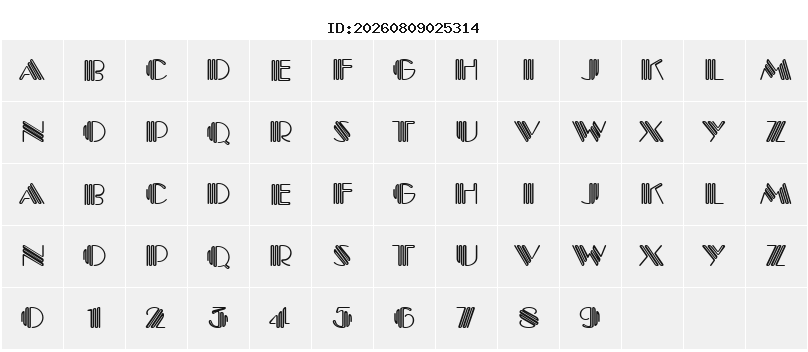
• Font Name: PiccadillyD
About PiccadillyD.ttf
PiccadillyD.ttf is a modern, elegant sans-serif font designed for ultimate readability and visual harmony. Perfect for branding, headlines, web design, and print materials.